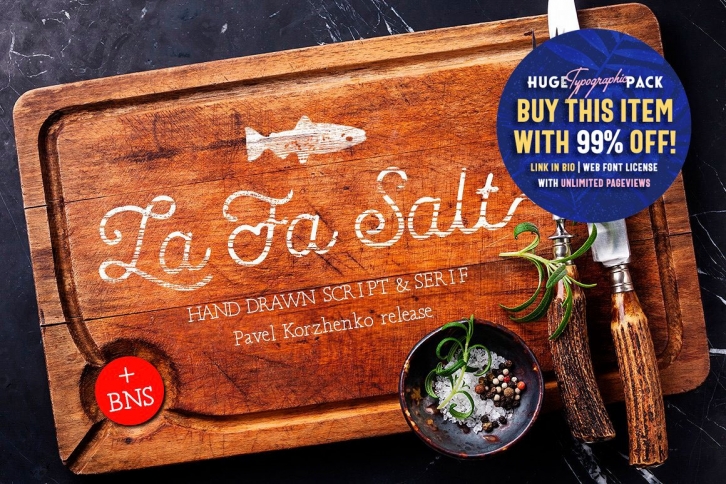
I want to show you my hardworking week product - La Fa Salt cursive script. There are also some interesting alternates ending and other glyphs, discretionary ligatures, includes a full set of capital and lowercase letters (Also with Romantic stylistic alternate), as well as multi-language support, numerals, and punctuation.
You can did vintage or romantic look typography, It will be good for all of them!
+BONUS: Robinson. Hand drawn serif free type.